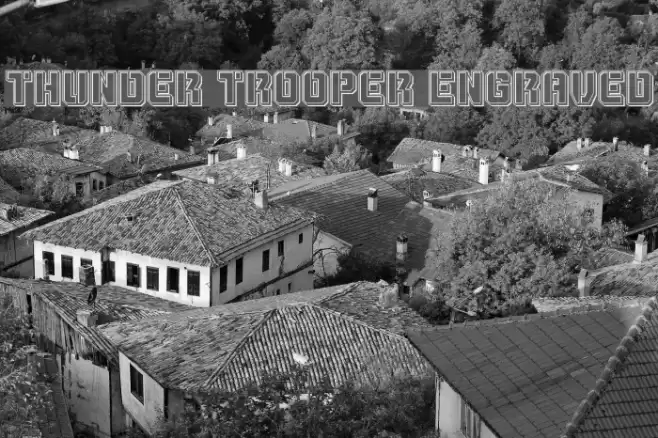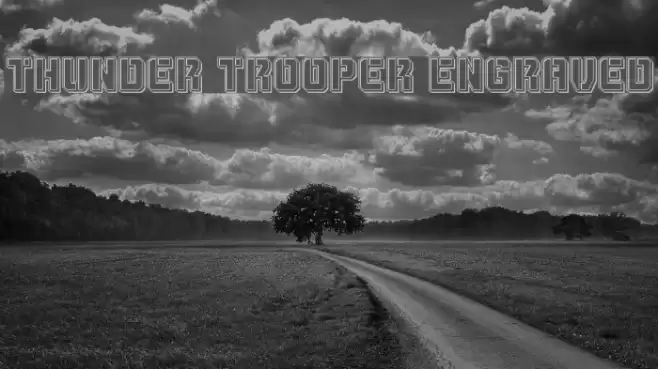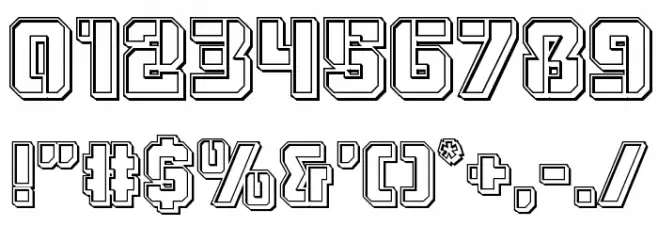
Thunder Trooper Engraved Font
Thunder Trooper Engraved Description
This font features a bold, geometric design with a three-dimensional engraved effect. Each character is outlined with a double line, creating a sense of depth and structure. The uppercase and lowercase letters maintain a consistent blocky style, emphasizing straight lines and sharp angles. The numerals and special characters follow the same design principles, ensuring uniformity across the entire set. This font's unique style is both modern and futuristic, making it ideal for projects that require a strong visual impact.
A bold, geometric font with a 3D engraved effect and consistent blocky style from Uncategorized fonts.
- Proposed Projects: Ideal for video game titles, sci-fi movie posters, tech branding, and futuristic designs.
- Overall Style: Futuristic, Modern